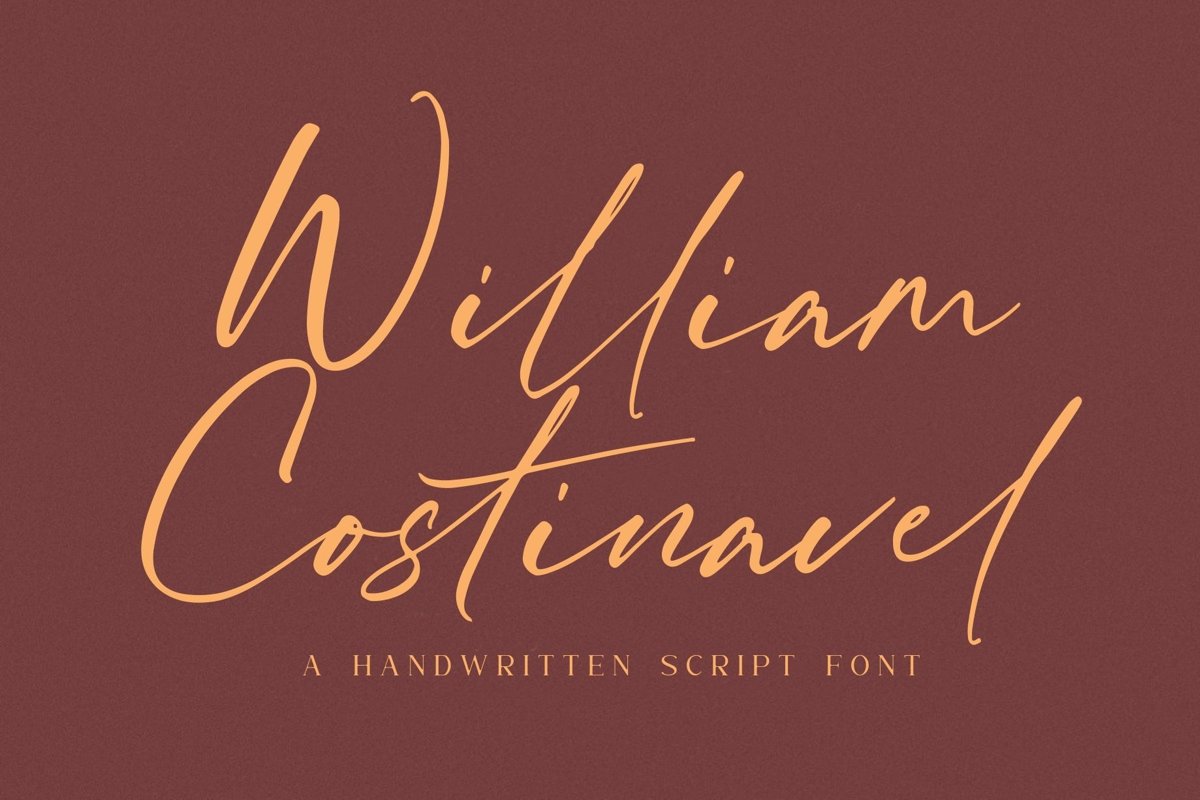
William Costinavel
William Costinavel. i hope this font is perfect for creating signature logos and watermarks for photography studio or wedding invitation, Lable, Logo, Magazine best for initial or branding logo signature.
William Costinavel a full set of beautifull hand letters, numerals, a large range of punctuation and ligatures. Giving realistic hand-lettered style. What do you get, darling?